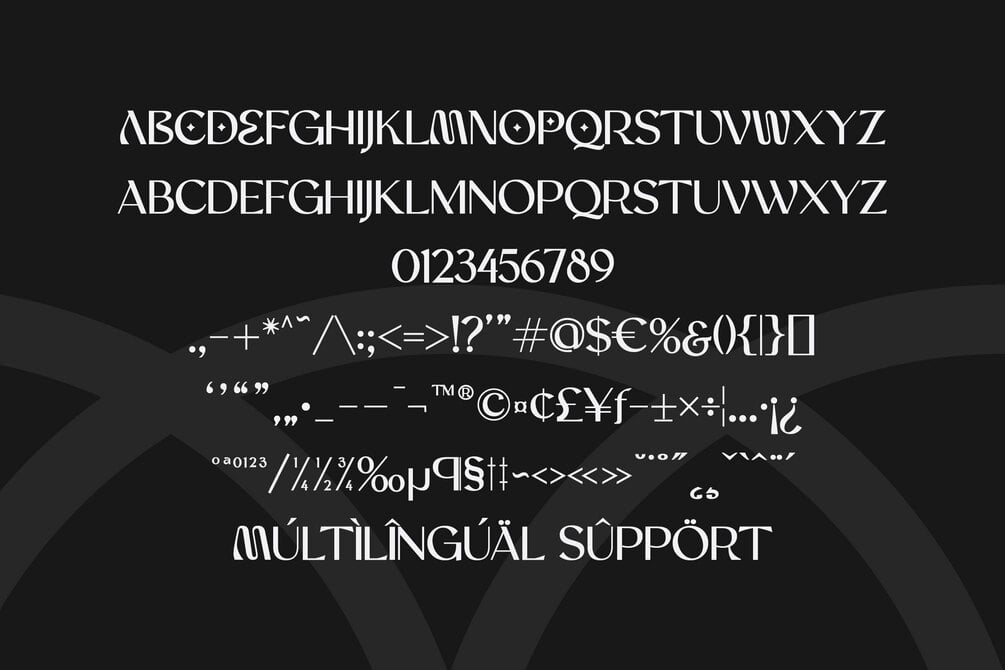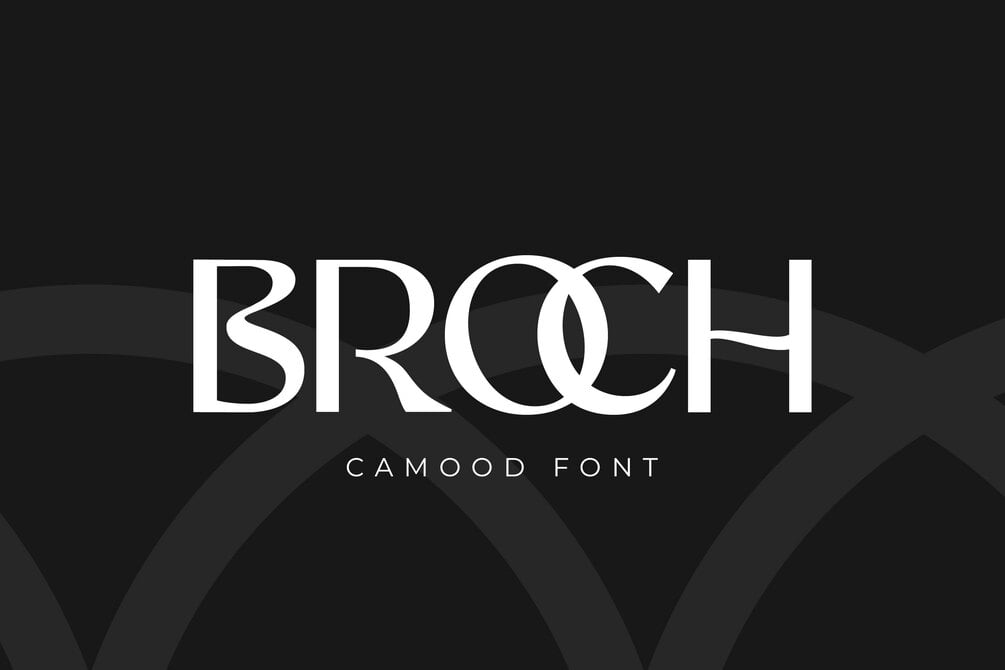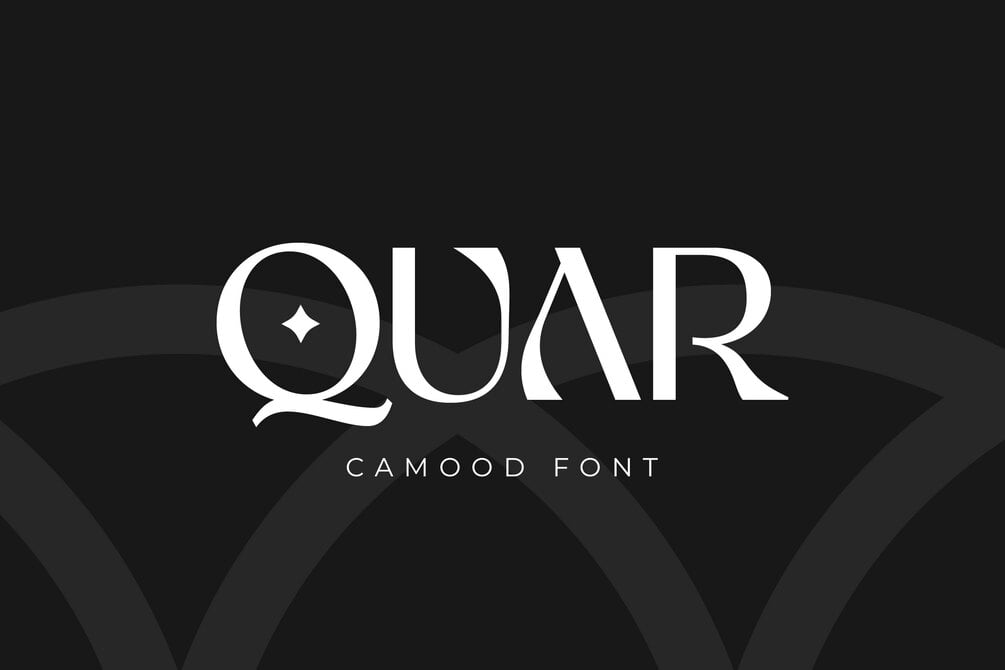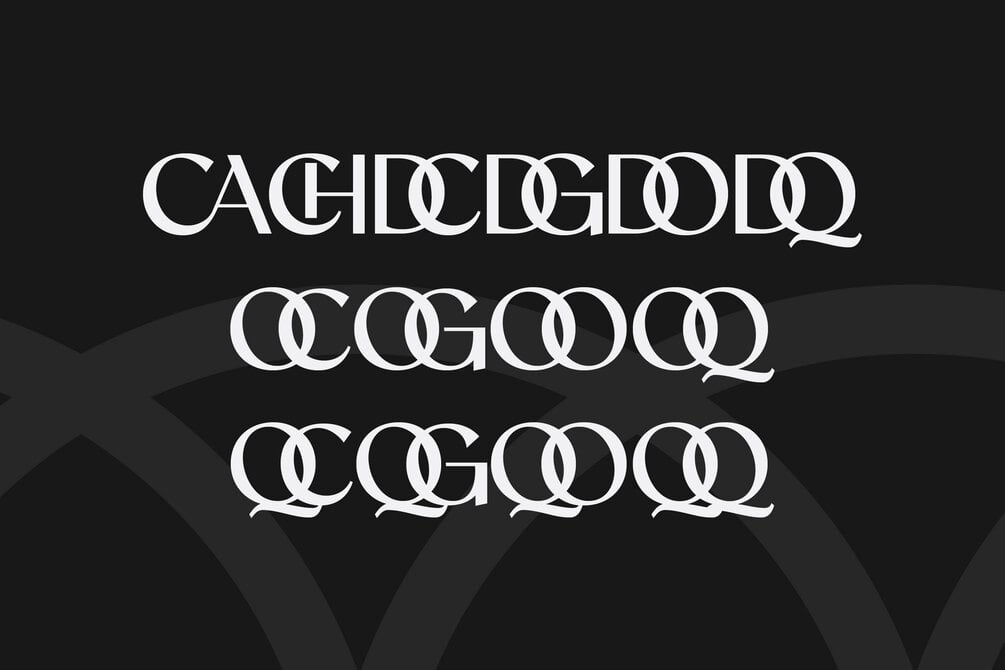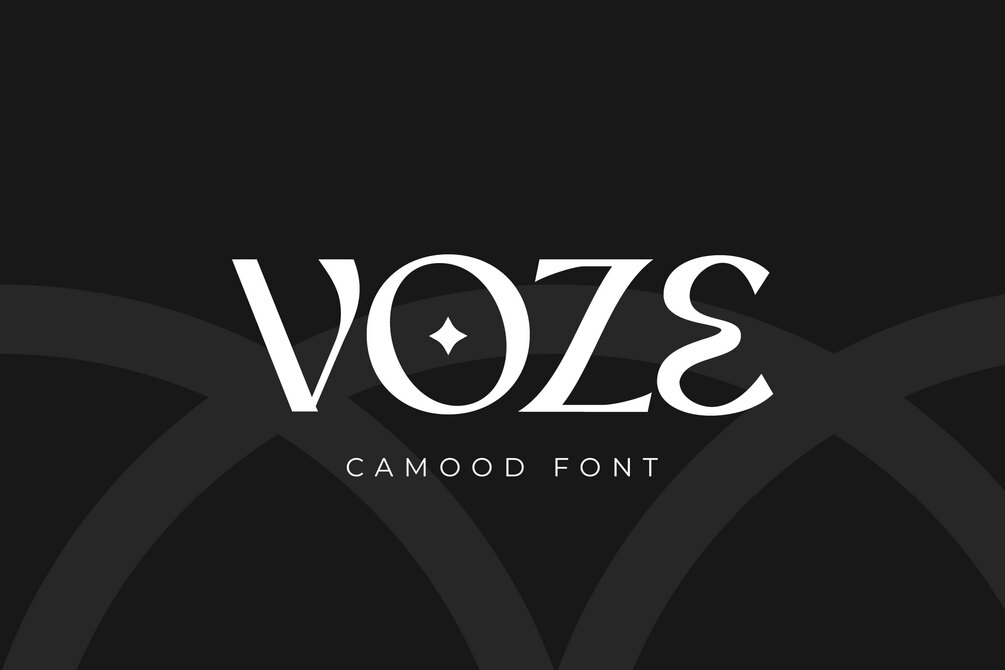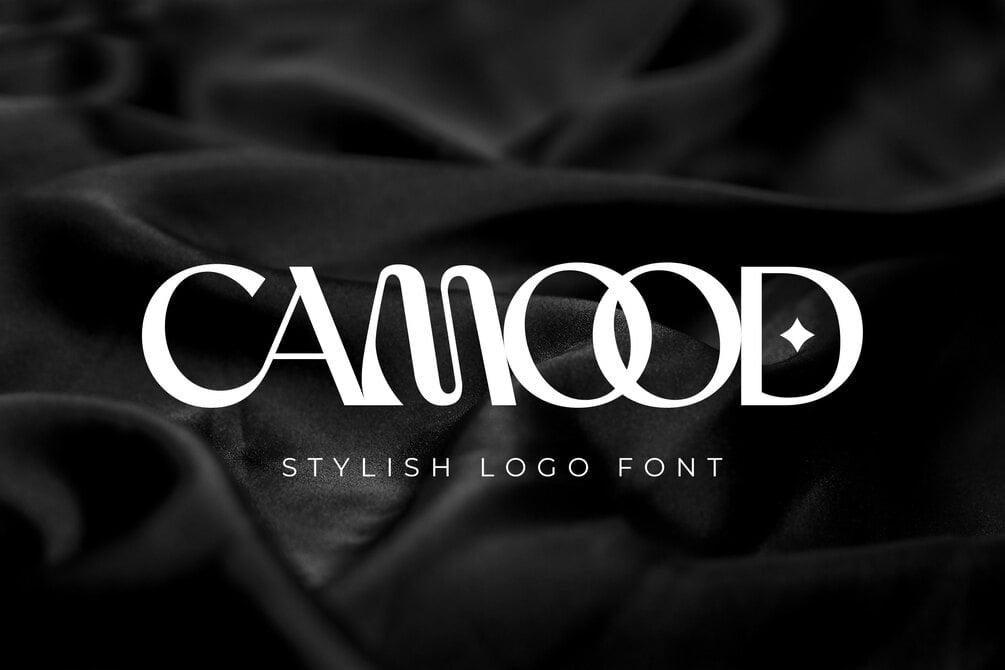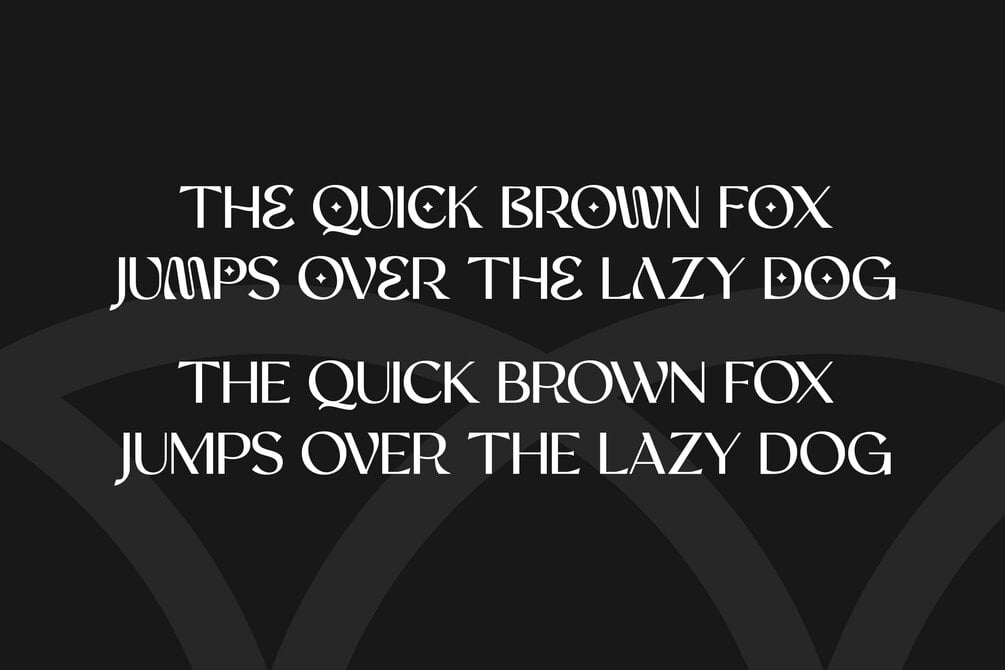
Camood Font
Cameo is a stylish logo font with elegant decorative details, perfect for branding, posters, invitations, and editorial designs. Its unique letterforms and smooth curves make it an ideal choice for creating standout visual identities.
• All Caps, Numeral & Punctuation
• Ligatures
• PUA Encoded & Multilingual